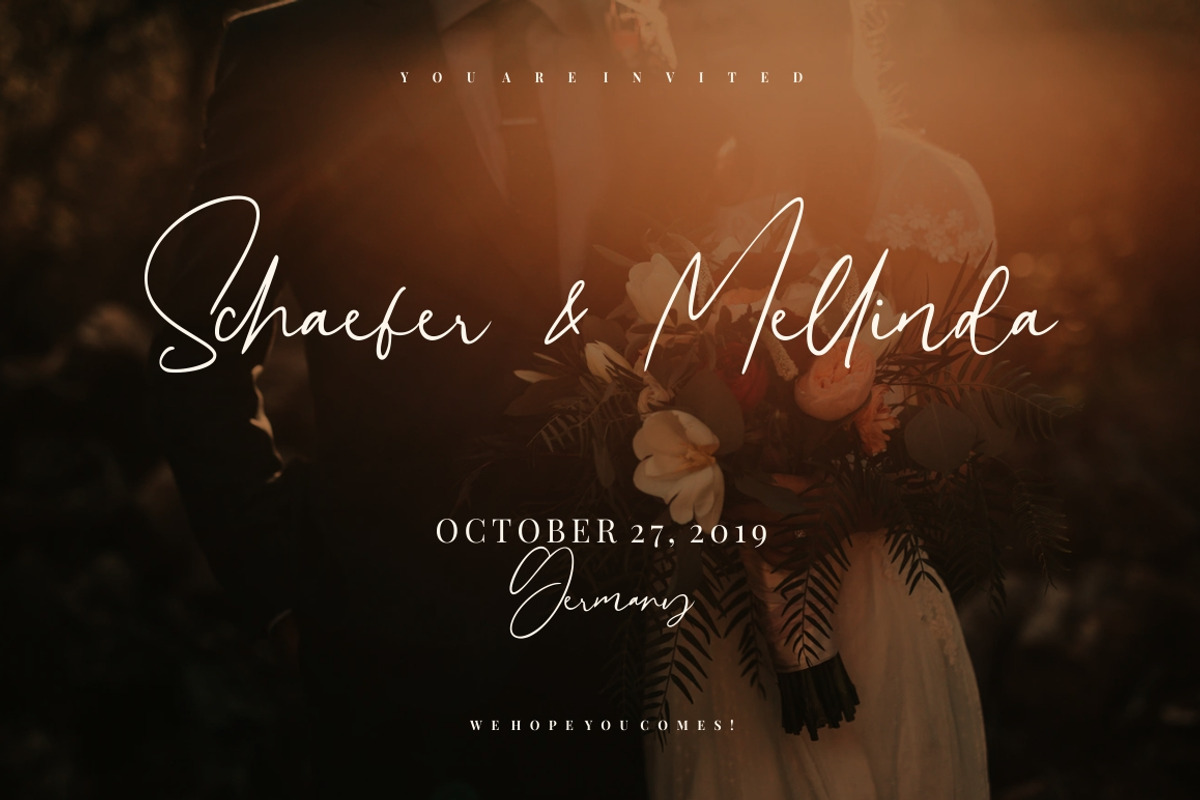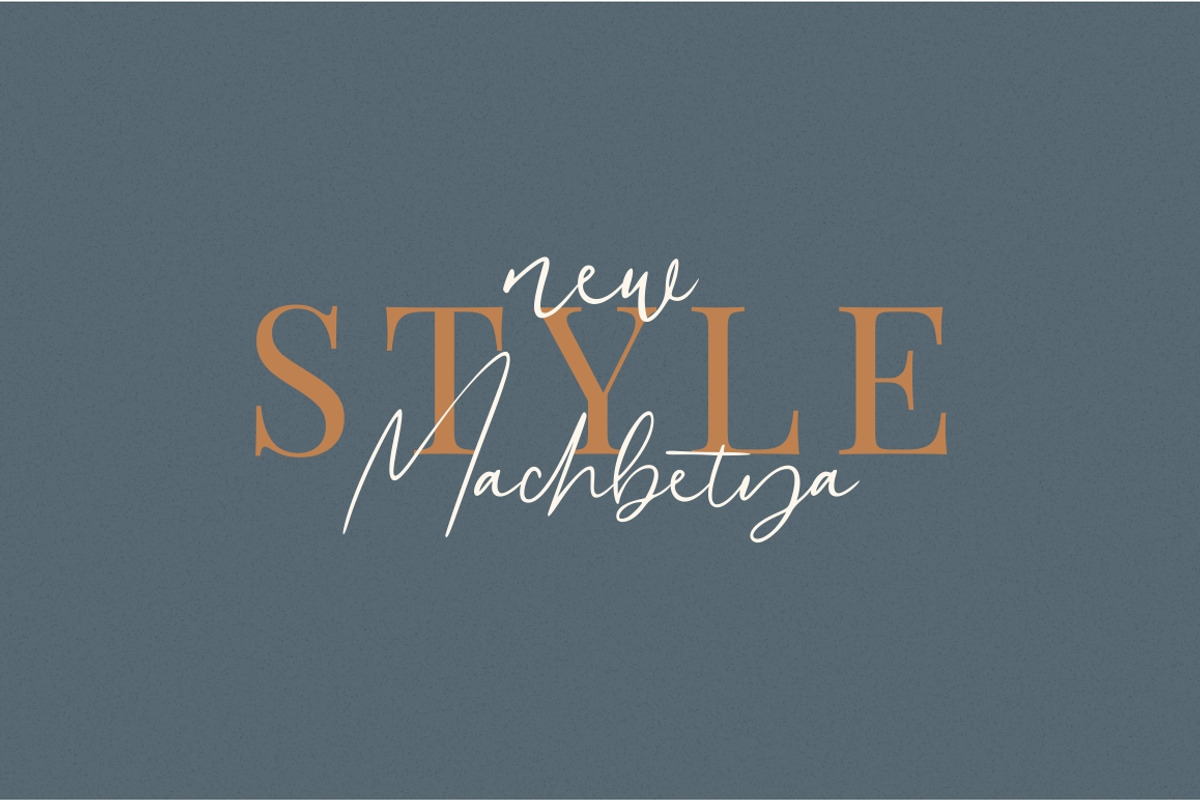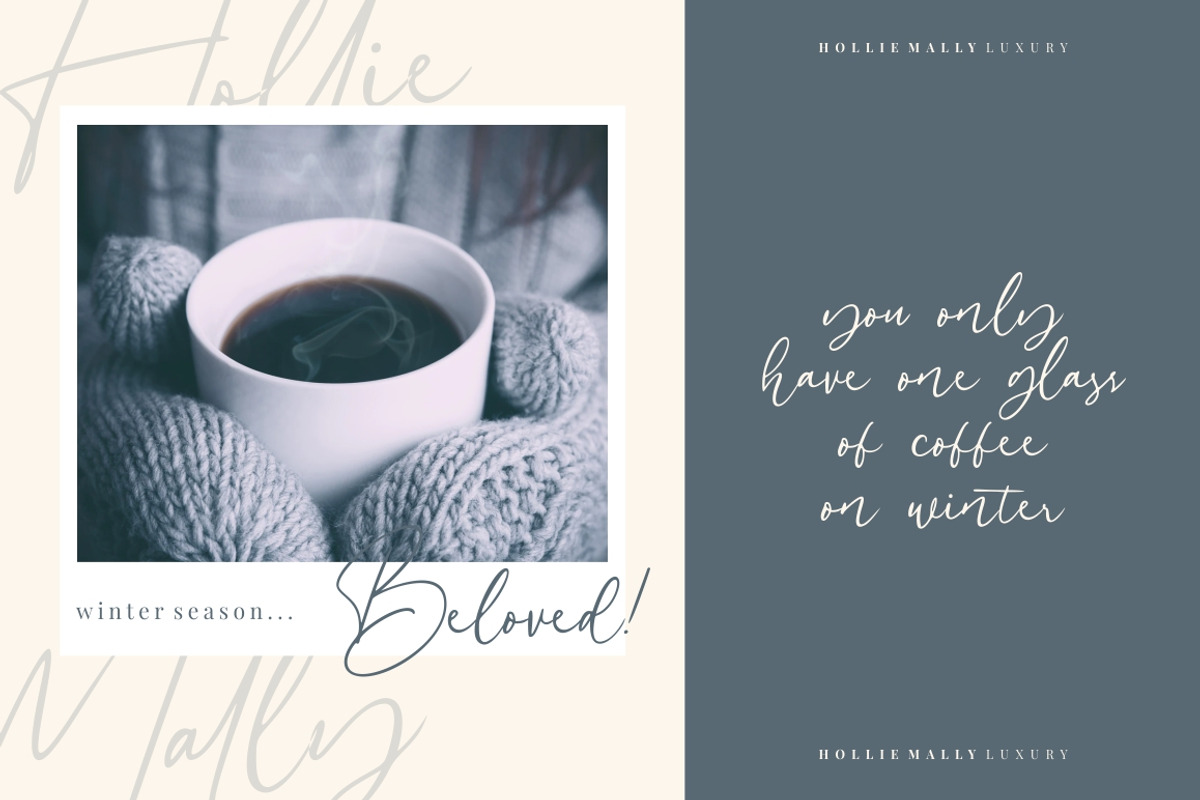
Hollie Mally
Hollie Mally - handwritten font is a natural & modern handwritten font. I'ts Perfect for logo, invitation, stationery, wedding designs, social media posts, advertisements, product packaging, product designs, label, photography, watermark, special events or anything. This font include : Hollie Mally OTF-TTF-WOFF, Ligatures, and also Multilingual support.
What's Advantages Hollie Mally?
- Very great for branding, logotype, handletteing, invitations, or fashion branding.